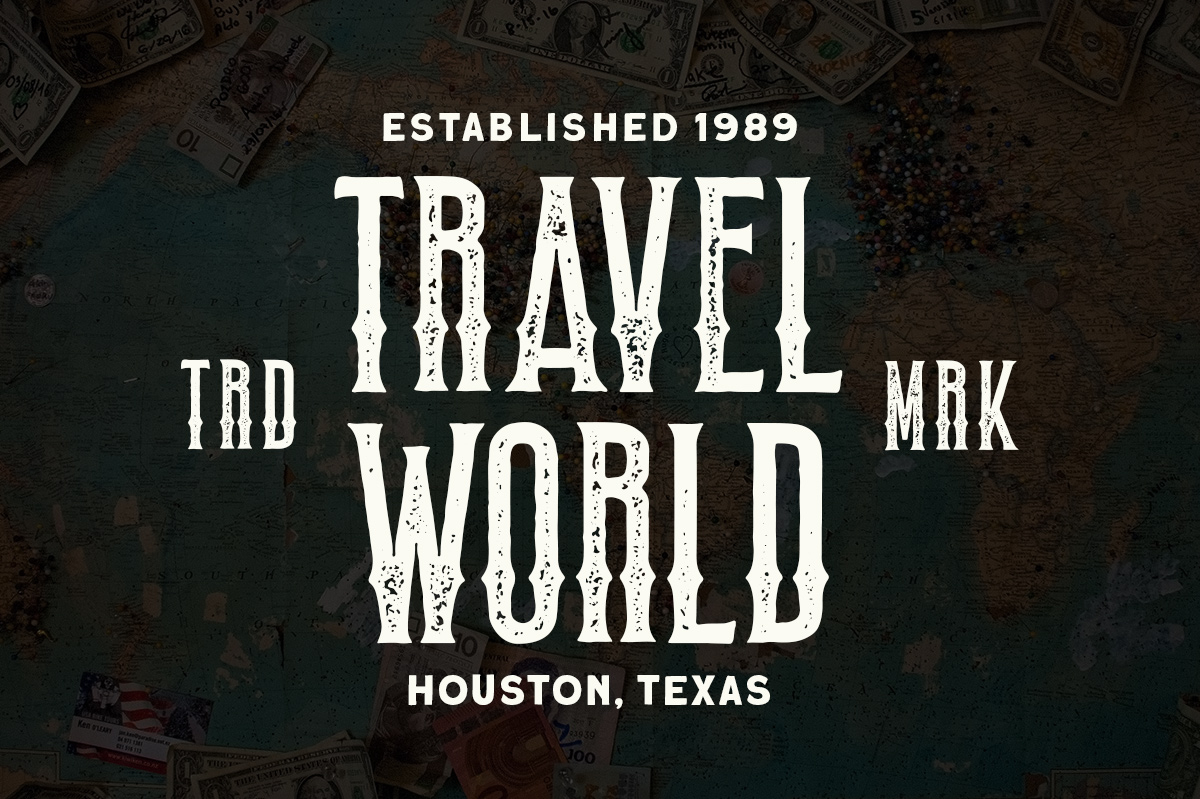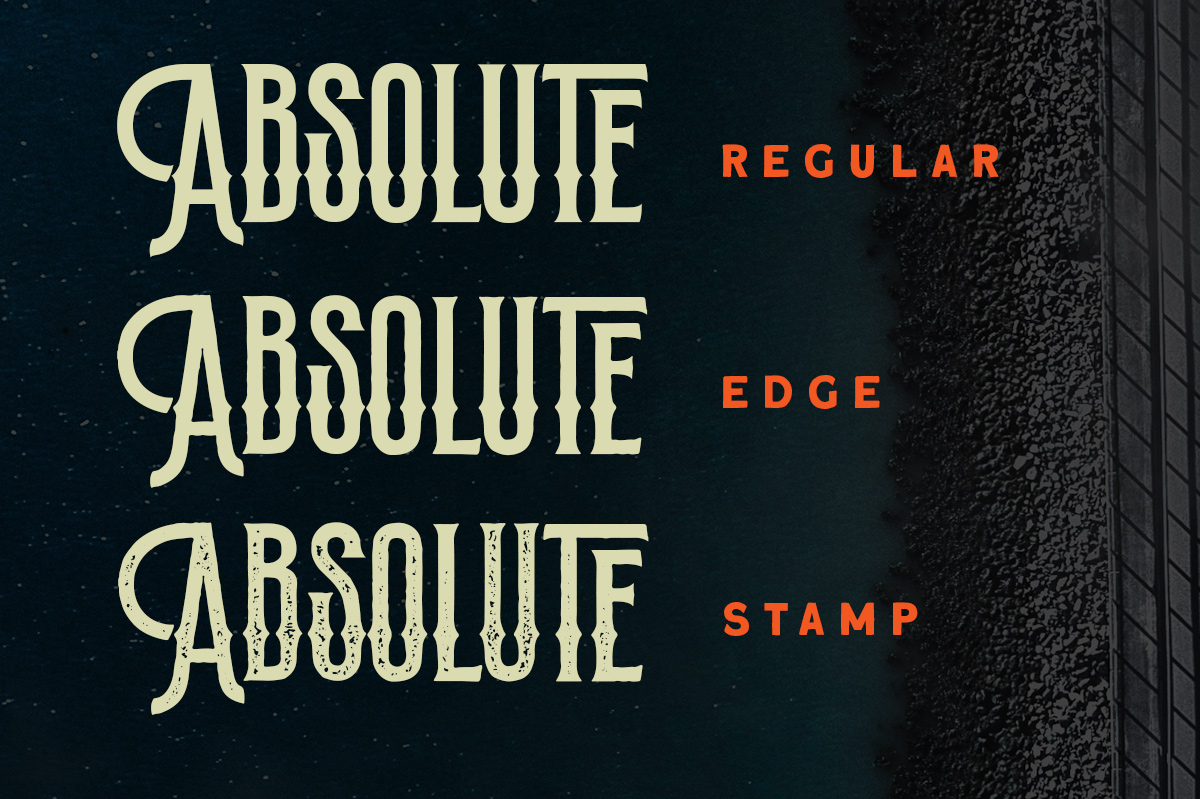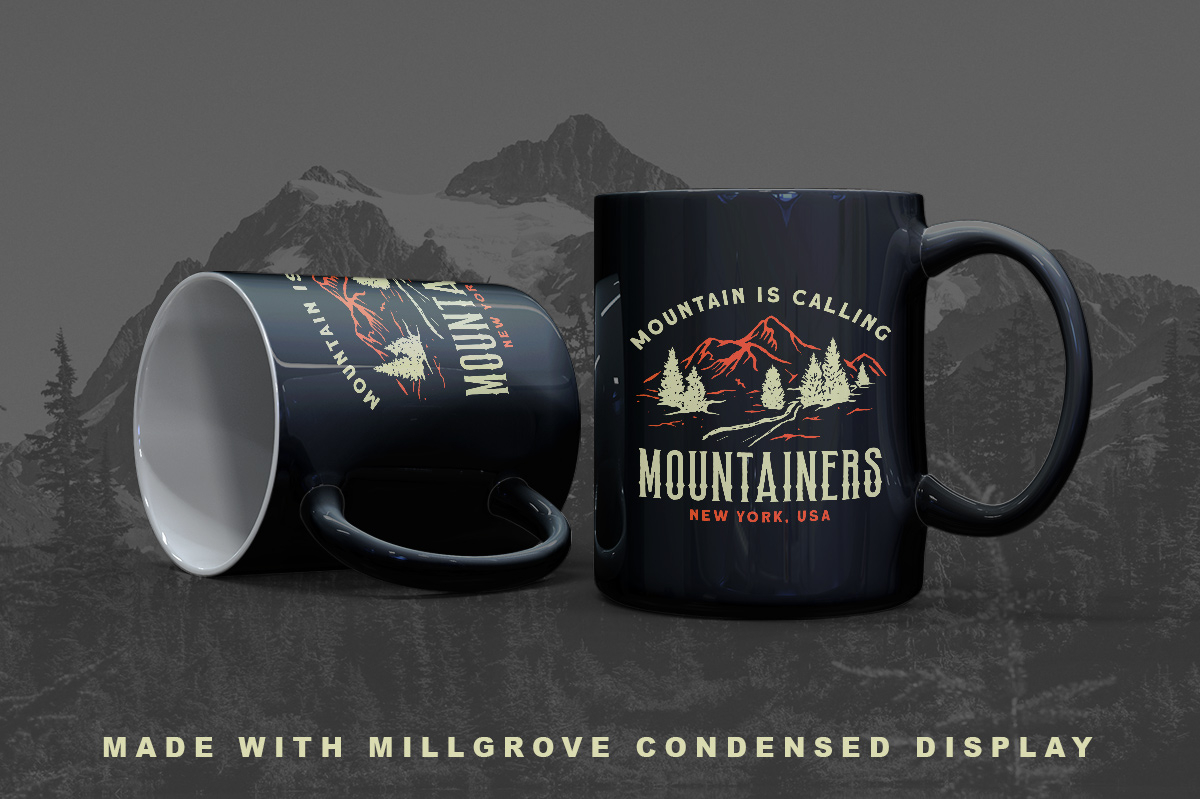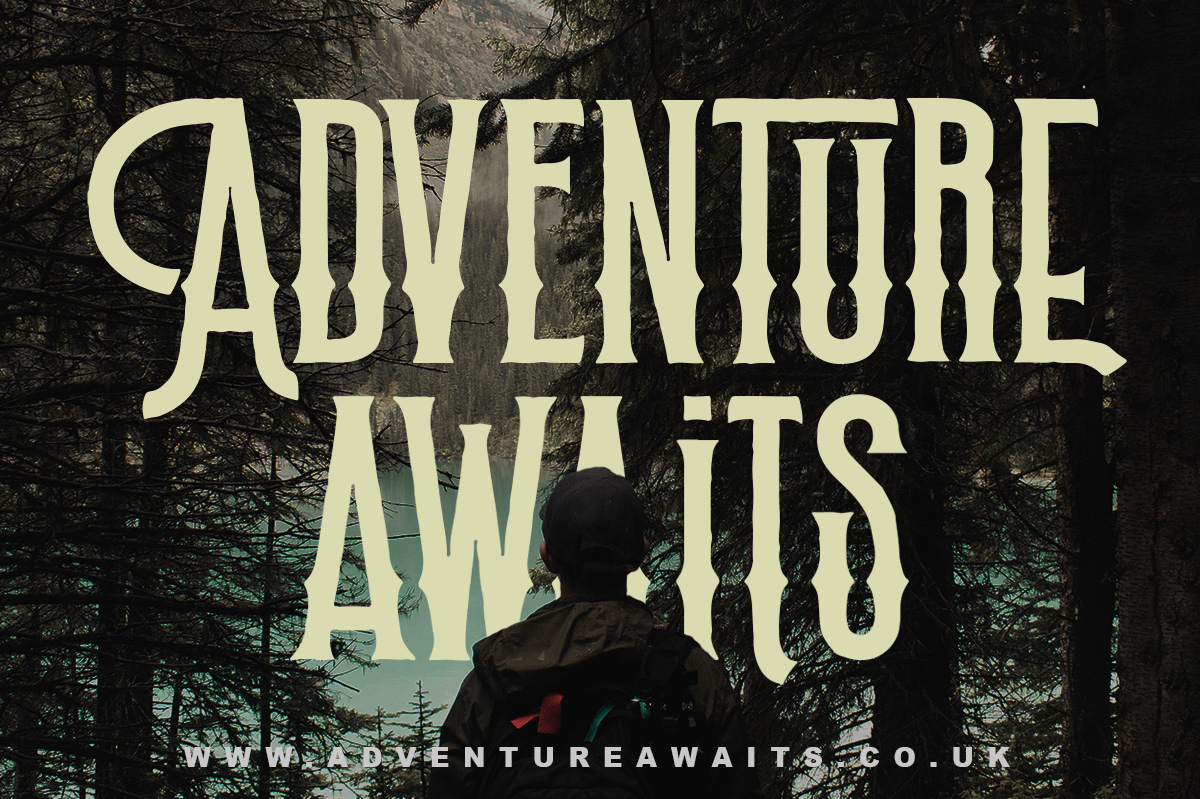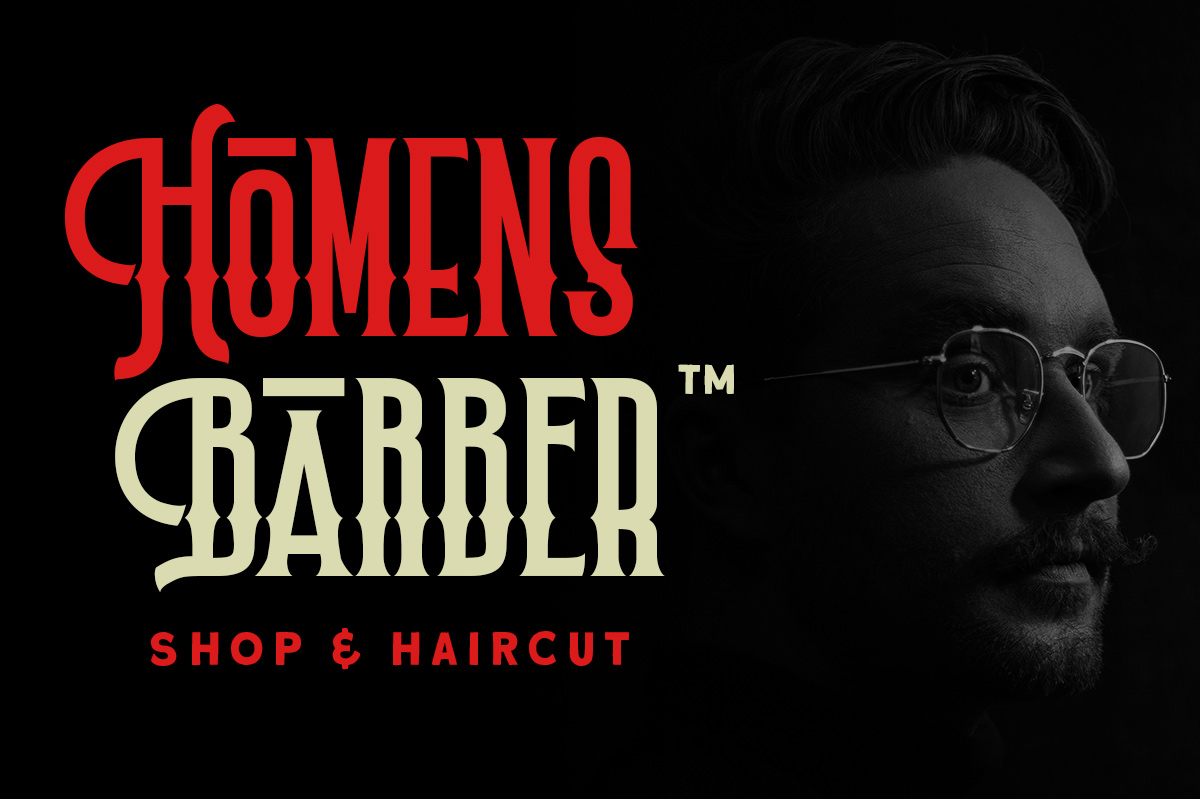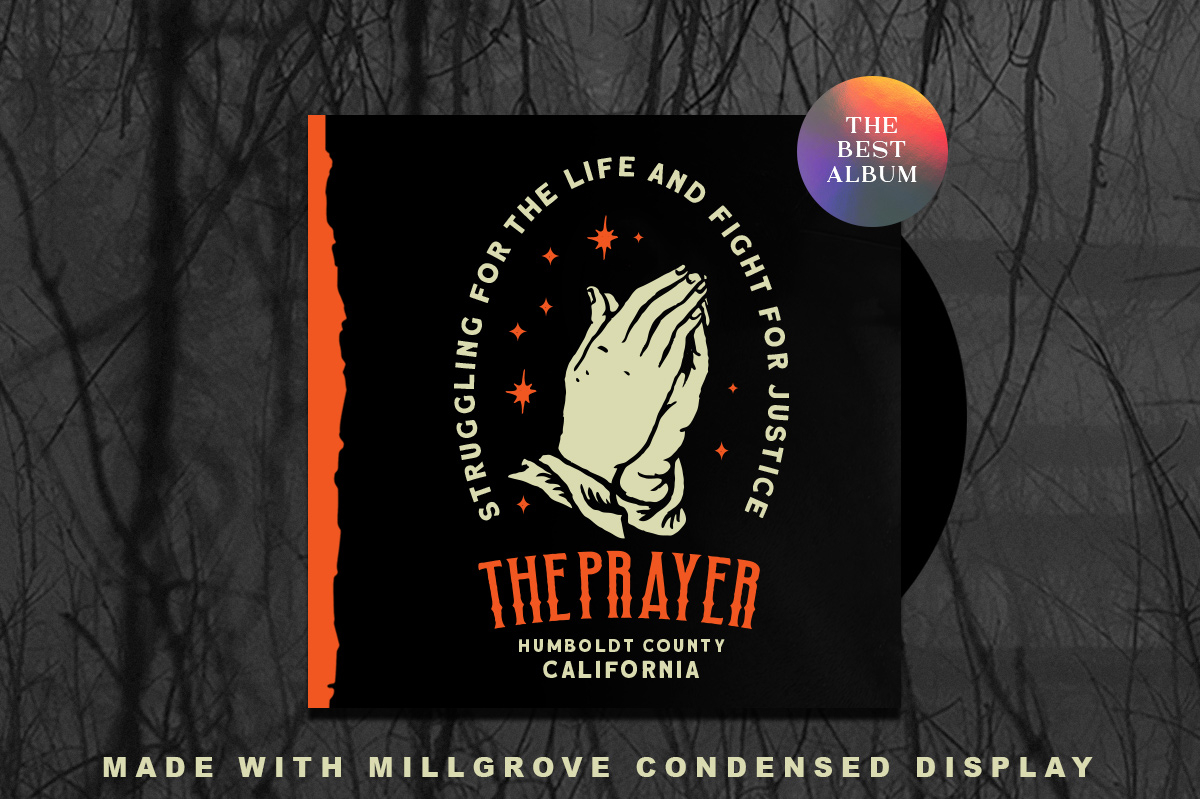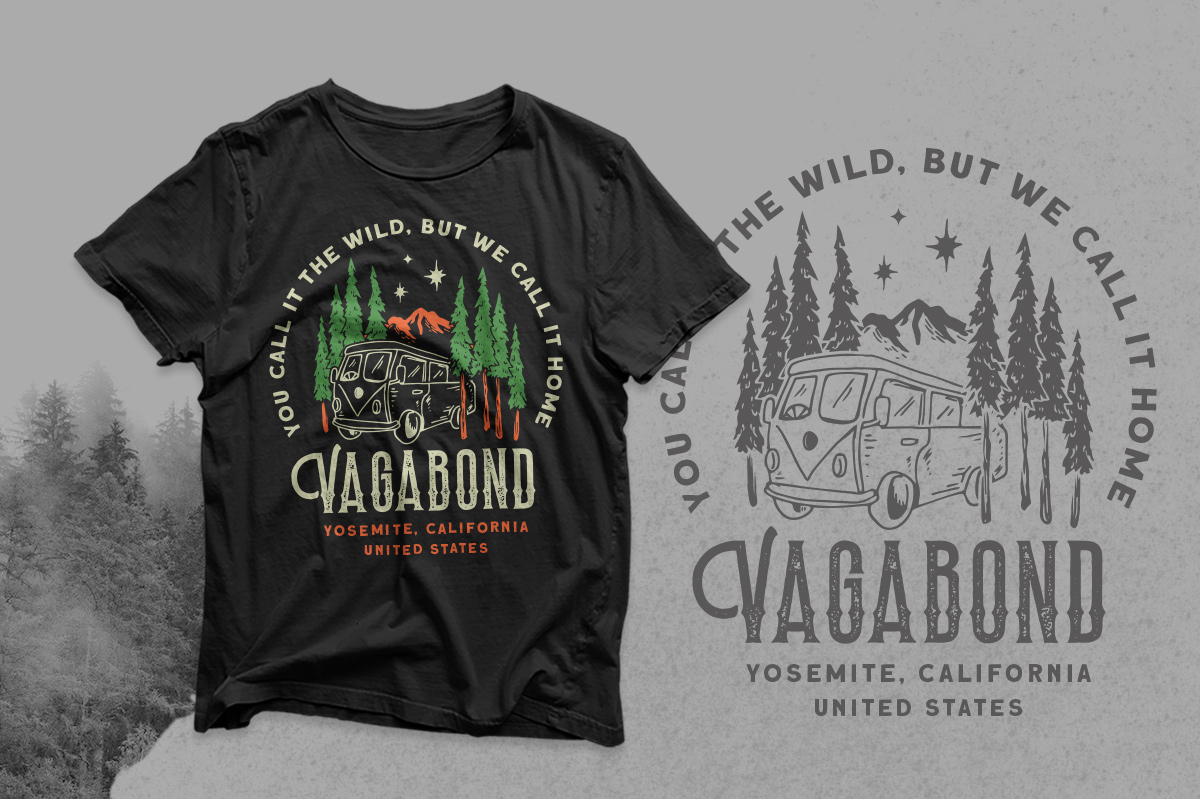
Millgrove Font
About Millgrove Font
Millgrove is an elegant blackletter font. A little bit quirky, this font looks incredibly adept on a wide variety of contexts!